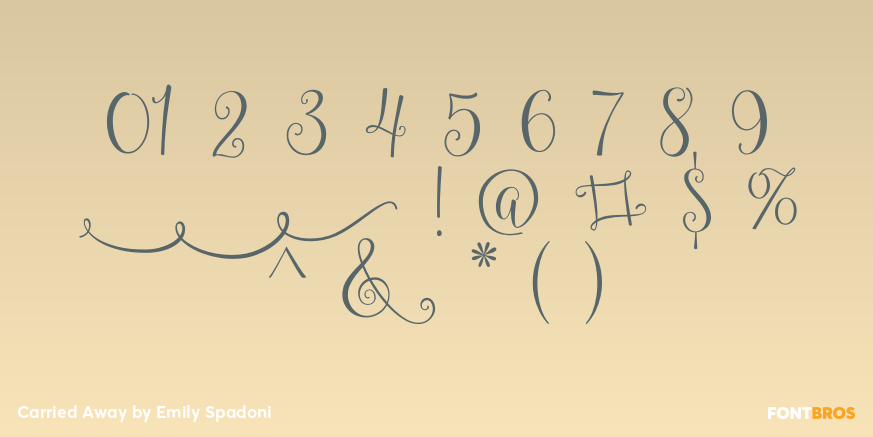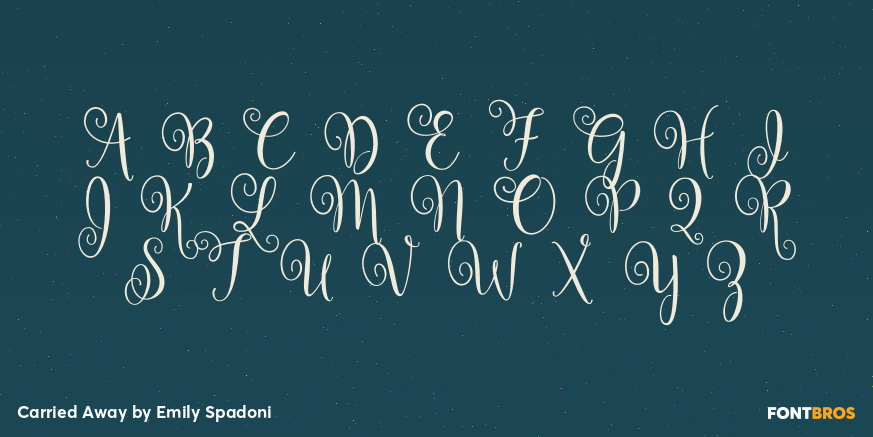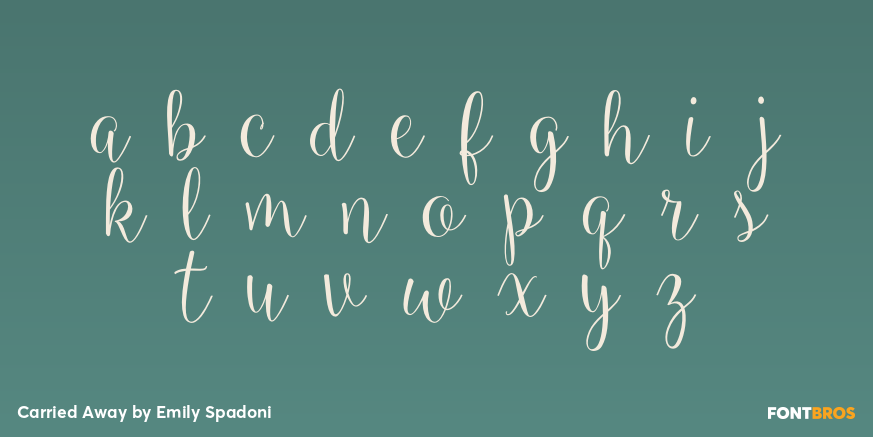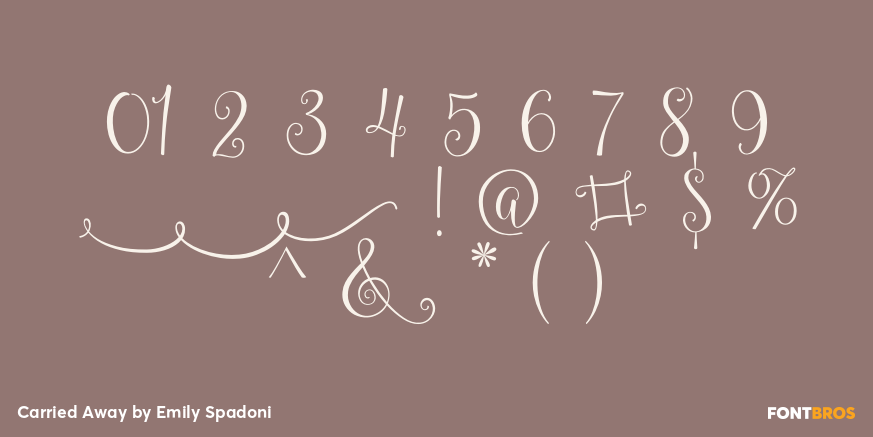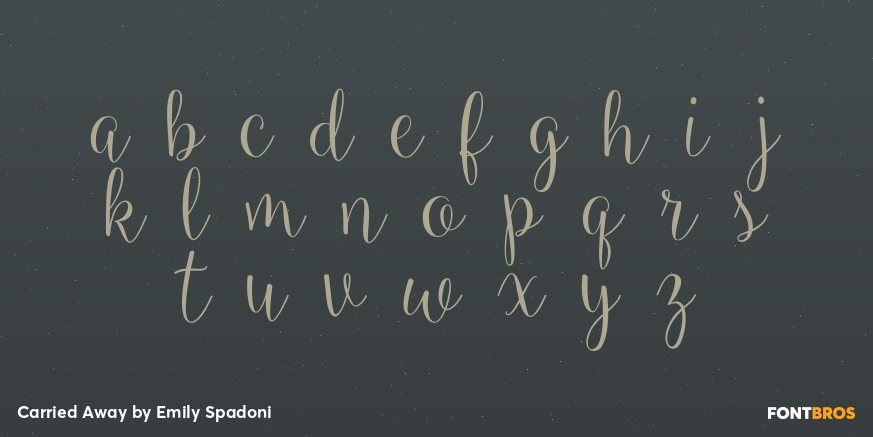
Carried Away
Font Family by Emily Spadoni
Including over 160 different hand-drawn characters for a range of languages and dialects.
*Looking for Ballerina Script? This is it! (Ballerina is a demo version of this font)
Carried Away Regular
Carried Away Bonus